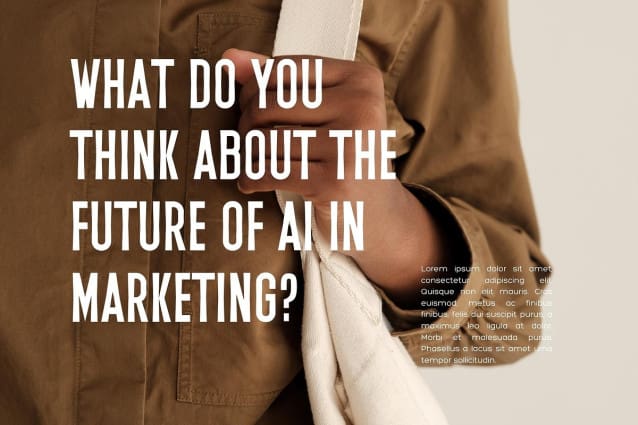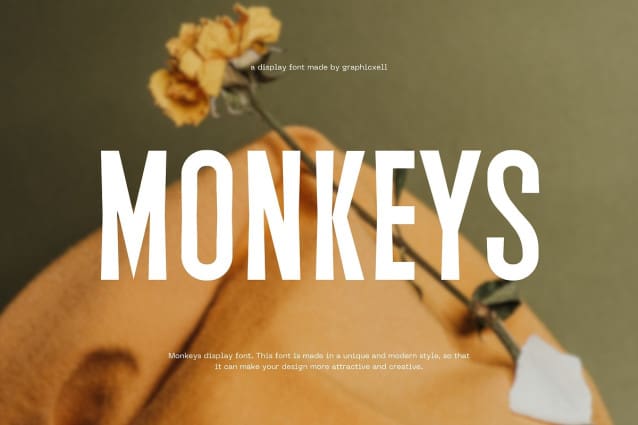
Monkeys Font
Monkeys Font – Modern Bold Sans Font Typeface inspired by the famous minimalist logo perfect for the purposes of designing templates, brochures, videos, advertising branding, logos, invitation, layout design, elegant crafting, beauty design and other